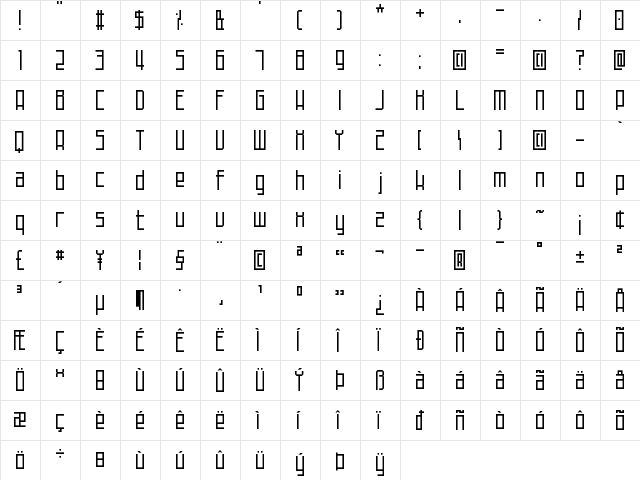
Techno at Dusk Regular
| Designer | GameDevDan |
Design Context for Techno at Dusk Typeface
Techno at Dusk channels digital-age aesthetics through its sharp, structured letterforms — ideal for brands that want to signal innovation.
Pro Tip: Use Techno at Dusk in combination with a neutral sans for body text. Let it define the brand voice in headlines while keeping reading comfortable elsewhere.